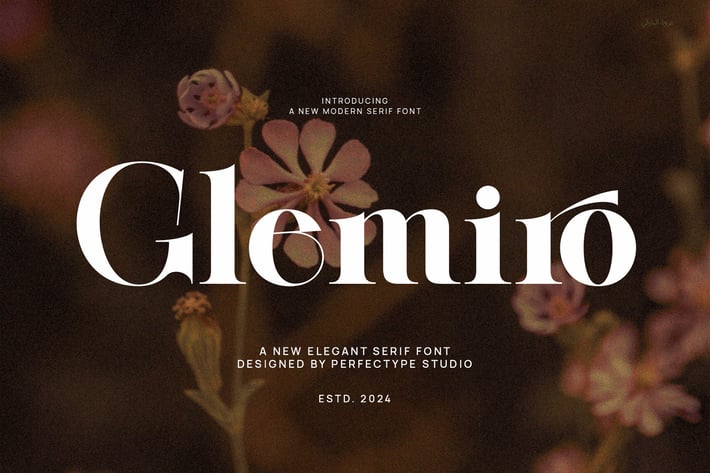
Glemiro Modern Elegant Serif Font Typeface
Glemiro is a modern serif font designed to bring elegance and style to your creative projects. With clean lines and graceful curves, this font combines classic serif details with a fresh, contemporary look. It works well for many uses, such as branding, editorial design, wedding invitations, and luxury packaging.
This font offers excellent readability while adding a refined touch to any text. Whether you need it for large headlines or smaller body copy, Glemiro holds its clarity and charm. The balanced letter shapes and smooth strokes help maintain a polished appearance, no matter the size.
Moreover, Glemiro includes a complete set of uppercase and lowercase letters, numbers, and punctuation marks. This makes it flexible for different design needs. You can use it in print projects or digital layouts without any trouble.
Here are the main benefits of Glemiro:
- Modern serif style with elegant curves
- Perfect for luxury brands and editorial work
- Clear and readable in headlines and text
- Full set of letters, numbers, and symbols
- Smooth lines that add sophistication
- Works well in print and digital designs
- Combines easily with sans serif fonts
Additionally, Glemiro pairs nicely with other fonts, helping you create clean, professional designs. It is ideal for designers who want a timeless yet fresh serif font. Whether your project is a wedding card, magazine layout, or brand logo, Glemiro adds a sense of style and class.
In summary, Glemiro is a versatile serif font that blends elegance and modern design. Add this font to your collection to give your projects a polished and stylish look.
This font offers excellent readability while adding a refined touch to any text. Whether you need it for large headlines or smaller body copy, Glemiro holds its clarity and charm. The balanced letter shapes and smooth strokes help maintain a polished appearance, no matter the size.
Moreover, Glemiro includes a complete set of uppercase and lowercase letters, numbers, and punctuation marks. This makes it flexible for different design needs. You can use it in print projects or digital layouts without any trouble.
Here are the main benefits of Glemiro:
- Modern serif style with elegant curves
- Perfect for luxury brands and editorial work
- Clear and readable in headlines and text
- Full set of letters, numbers, and symbols
- Smooth lines that add sophistication
- Works well in print and digital designs
- Combines easily with sans serif fonts
Additionally, Glemiro pairs nicely with other fonts, helping you create clean, professional designs. It is ideal for designers who want a timeless yet fresh serif font. Whether your project is a wedding card, magazine layout, or brand logo, Glemiro adds a sense of style and class.
In summary, Glemiro is a versatile serif font that blends elegance and modern design. Add this font to your collection to give your projects a polished and stylish look.